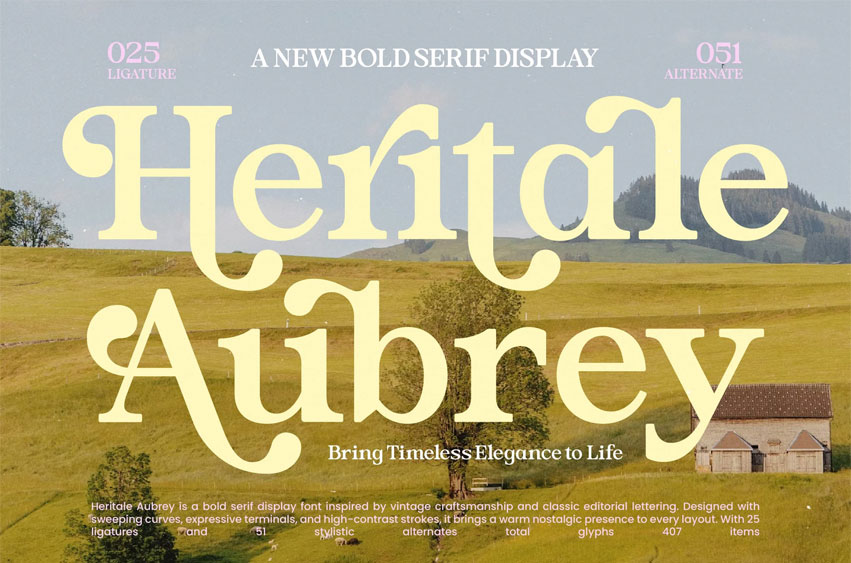
Heritale Aubrey Font
Heritale Aubrey Font is a bold serif display font inspired by vintage craftsmanship, classical editorial lettering, and expressive high-contrast strokes. With its sweeping curves, warm nostalgia, and charming decorative terminals, this typeface is perfect for magazine titles, boutique branding, packaging, book covers, wedding concepts, posters, and artistic logo design. It brings timeless elegance, editorial sophistication, and a beautifully nostalgic presence to any layout.
Featuring 25 ligatures, 51 alternates, and a total of 407 glyphs, Heritale Aubrey offers exceptional creative flexibility for crafting custom wordmarks, stylized headlines, ornamental compositions, and curated typographic arrangements. Its dramatic structure, refined detailing, and vintage-inspired charm make it an ideal choice for designers seeking a bold, expressive, and premium serif display.
Heritale Aubrey Font Preview